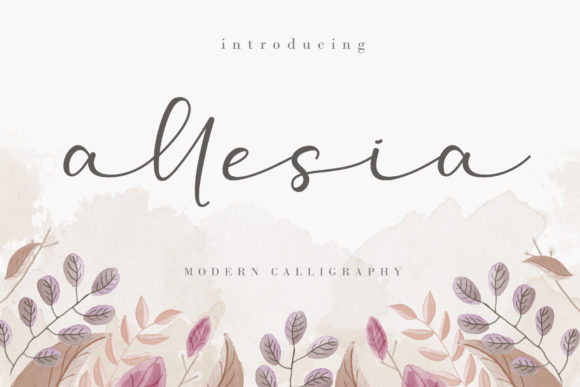
Introducing Allesia Font: Elevate Your Designs with Elegance and Sophistication
Are you looking for a font that can add a touch of elegance and sophistication to your design projects? Look no further than Allesia Font, a gorgeous handwritten font that brings its own unique style to any design project. With its beautiful and flowing script, Allesia Font is perfect for designers and crafters who want to create stunning designs that stand out from the crowd.
What Makes Allesia Font So Special?
Allesia Font is a versatile font that can elevate a wide range of design projects to the highest level. Whether you’re working on branding, headings, wedding designs, invitations, signatures, logos, labels, or any other type of design project, Allesia Font is the perfect choice. This font features a wealth of special features, including alternate glyphs and ligatures, which allow you to customize your designs and make them truly unique.
One of the best things about Allesia Font is that it’s PUA encoded, which means you can access all of the cute glyphs and swashes with ease. This makes it easy to add a personal touch to your designs and create truly one-of-a-kind projects. With PUA encoding, you can access a wide range of special characters and glyphs, including swashes, ligatures, and alternate glyphs.
Allesia Font is perfect for designers and crafters who want to create beautiful and professional-looking designs. Whether you’re a seasoned designer or just starting out, Allesia Font is easy to use and can help you create stunning designs in no time. With its elegant and sophisticated script, Allesia Font is perfect for a wide range of design projects, from wedding invitations and signs to logos and branding materials.
- PUA encoded: Easy access to all glyphs and swashes
- Alternate glyphs and ligatures: Add a personal touch to your designs
- Handwritten script: Elegant and sophisticated
- Versatile: Perfect for a wide range of design projects
- Easy to use: Perfect for designers and crafters of all levels
Allesia Font is a gorgeous handwritten font that can elevate any design project to the highest level. With its elegant and sophisticated script, PUA encoding, and special features like alternate glyphs and ligatures, Allesia Font is perfect for designers and crafters who want to create stunning designs. Whether you’re working on branding, headings, wedding designs, or any other type of design project, Allesia Font is the perfect choice.